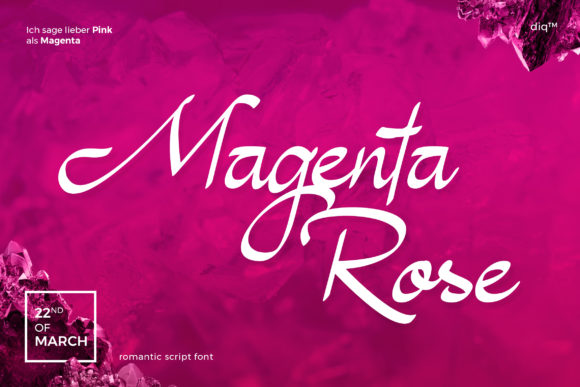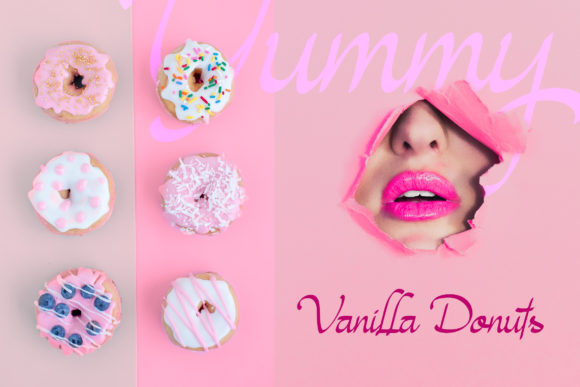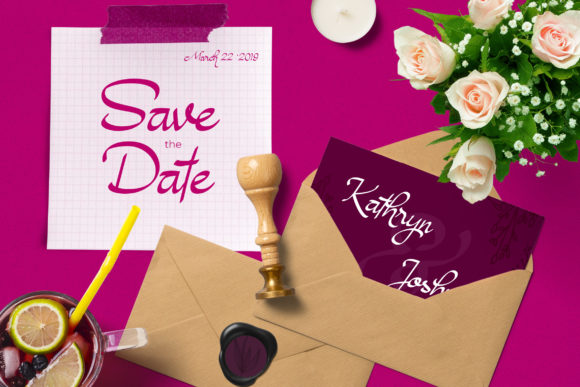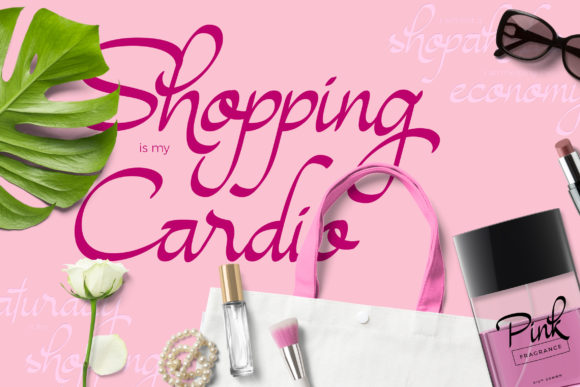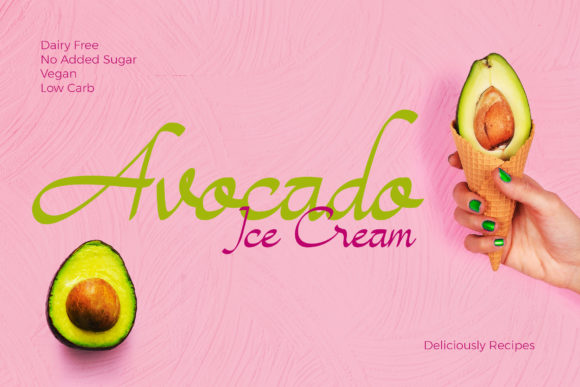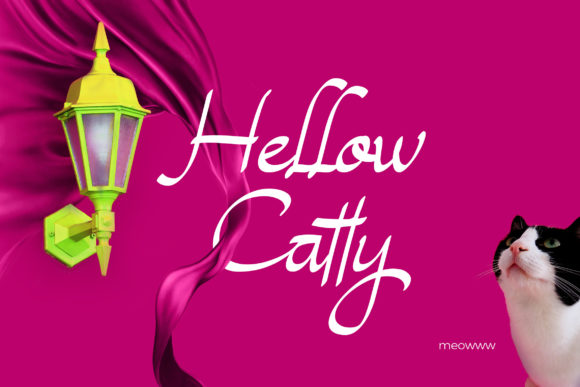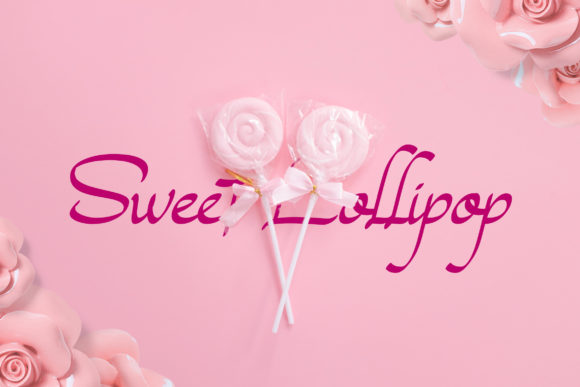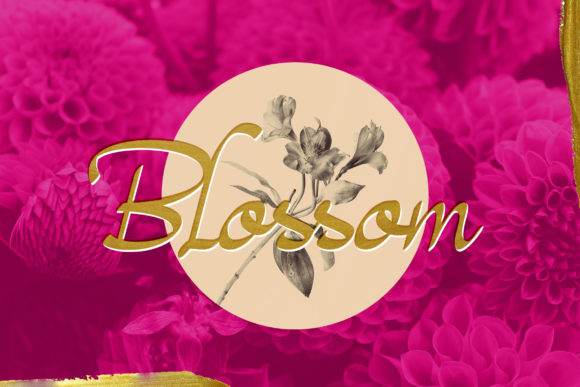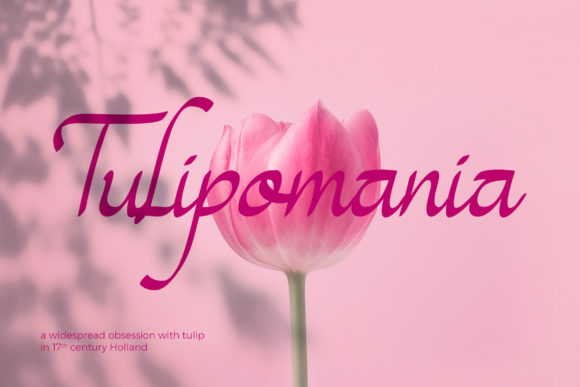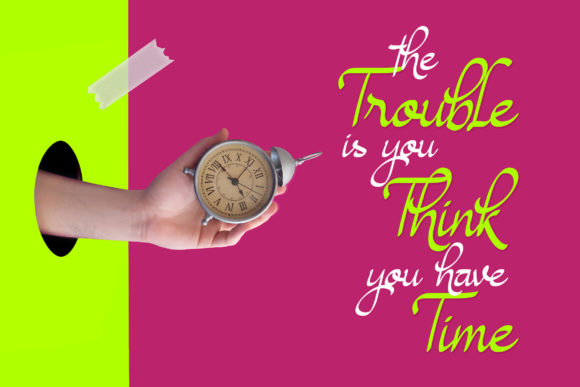
Magenta Rose Font
About Magenta Rose Font
Magenta Rose is a stunning handwritten font with an elegant charm. It will turn any design idea into a true stand out!